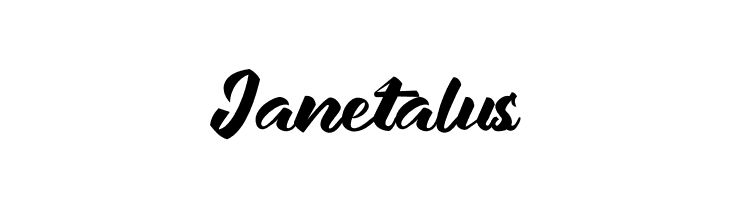
A bold, vintage typewriter-style font with rounded, robust characters.
A bold, italicized handwritten font with thick, rounded characters.
A bold, typewriter-inspired font with a hand-drawn, vintage feel.
An ornate and whimsical font with decorative curls and swashes.
A bold, ornate blackletter font with a medieval aesthetic.
A bold, ornate blackletter font with a gothic, medieval style.
A bold, decorative font with sharp serifs and high contrast, ideal for dramatic displays.
An ornate and decorative font with sharp serifs and dramatic curves.
Office-themed decorative icon font with bold, high-contrast glyphs.
A decorative font with football-themed illustrations integrated into bold, stylized letters.
A decorative font with a patriotic theme, featuring historical portraits and flag elements.
A whimsical, cartoon-inspired decorative font with bold, expressive characters.
A bold, chaotic, hand-drawn font with irregular strokes and a dynamic appearance.
A sophisticated script font with flowing, connected strokes and decorative flourishes.
A graceful, cursive script font with a natural, handwritten style.
An elegant script font with fluid, connected strokes and a handwritten feel.
An elegant, flowing script font with interconnected strokes and a sophisticated style.
A bold, brushstroke-style font with dynamic and expressive characters.
A playful, handwritten-style font with a casual and friendly vibe.
A playful, hand-drawn font with bold, striped characters.